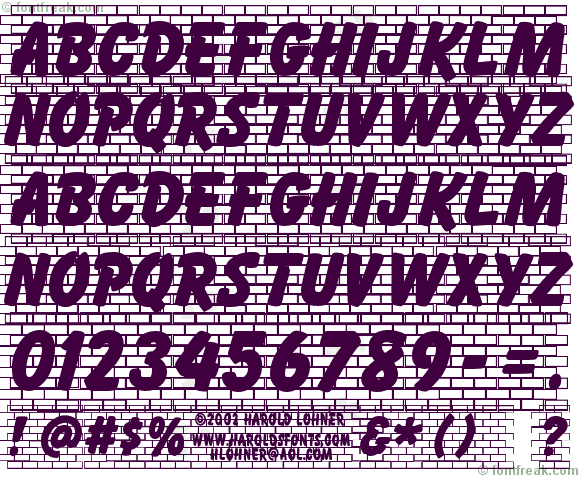
Brickletter
About Brickletter
Brickletter, designed by Harold Lohner, is a distinctive display font that captures a playful yet bold aesthetic. Released as freeware, this font is inspired by the creative spirit of urban art, particularly drawing influence from Jeffrey N. Levine’s "Off the Wall Letters." The Brickletter font features a unique, blocky appearance that mimics the texture and structure of bricks, making it visually striking and immediately recognizable. Its sturdy stroke weight and minimal contrast lend it a robust quality, while its generous spacing allows for easy readability, even at larger sizes.
This font is ideally suited for a variety of creative projects, including eye-catching movie posters, vibrant restaurant menus, and engaging promotional materials. Its playful nature makes it perfect for children’s event invitations or themed birthday parties, where a fun and energetic vibe is desired. Additionally, graphic designers looking to add a touch of urban flair to their work will find Brickletter to be an excellent choice for branding and logo design.
The target audience for Brickletter includes graphic designers, small business owners, and content creators who are seeking a font that balances creativity with practicality. Its versatility and unique design cater to those who want to make a strong visual statement in their projects.
What truly sets the Brickletter font apart is its ability to combine whimsy with a sense of structure, creating a memorable impact. This font stands out not just for its visual appeal but also for its versatility across various applications. For anyone looking to elevate their design projects, the Brickletter font free download is a fantastic option that promises to inspire creativity and innovation.